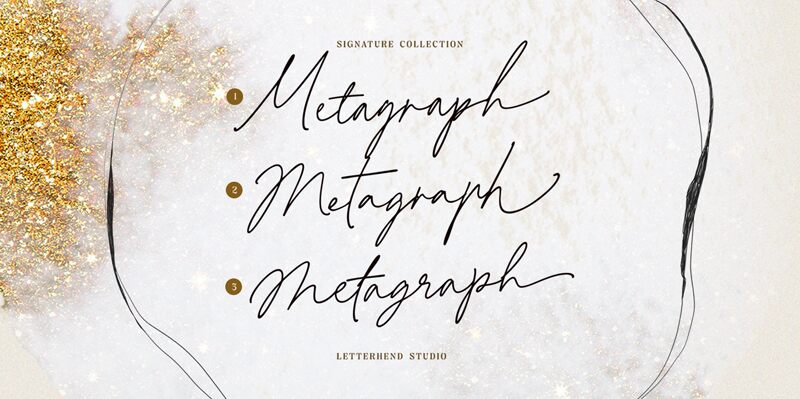
Metagraph One font by Letterhend Studio captures a signature handwritten style with casual elegance, smooth flow, and a handcrafted appearance. Taking the light weight and turning it into an artistic feature, this script font brings delicacy to each letter yet allows them to stand firm.
The inviting presence of Metagraph One makes it perfect for branding designs and packaging projects for cosmetics, t-shirts design, digital stationery presentations, logos and visual identities. Additional uses include signages for shops or boutiques as well as printed invitations distributed for weddings or other special events.